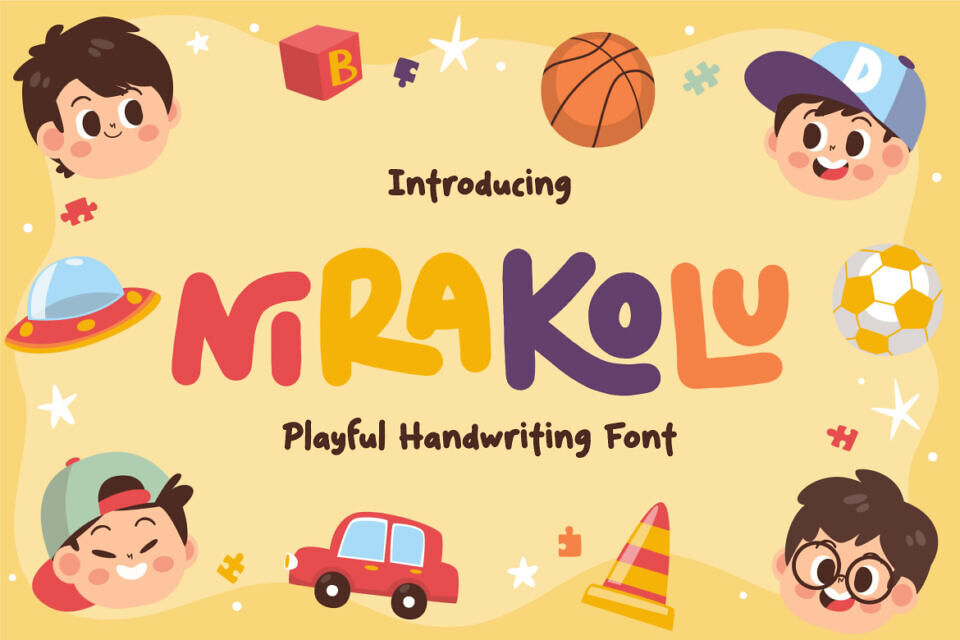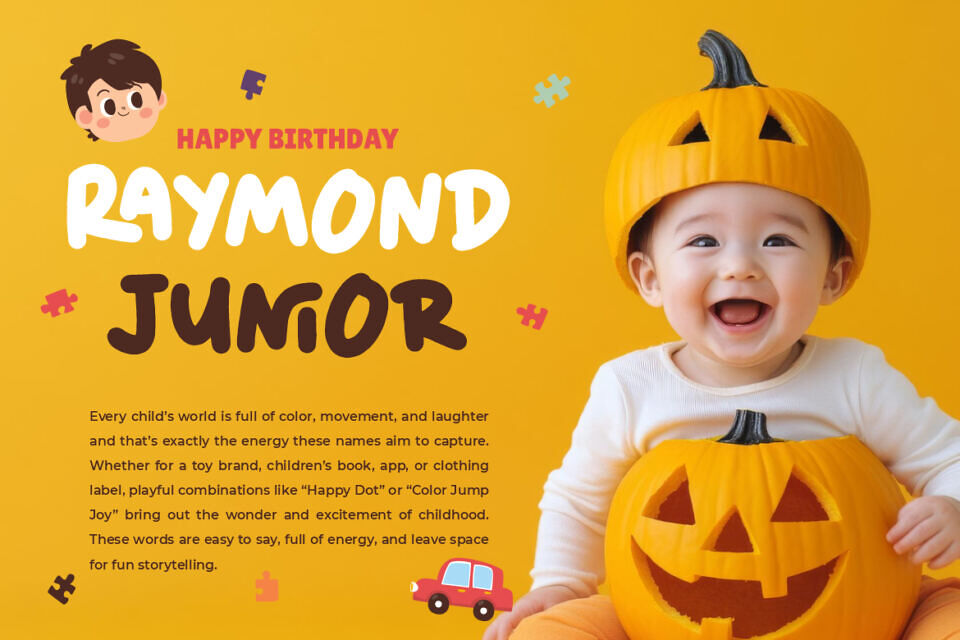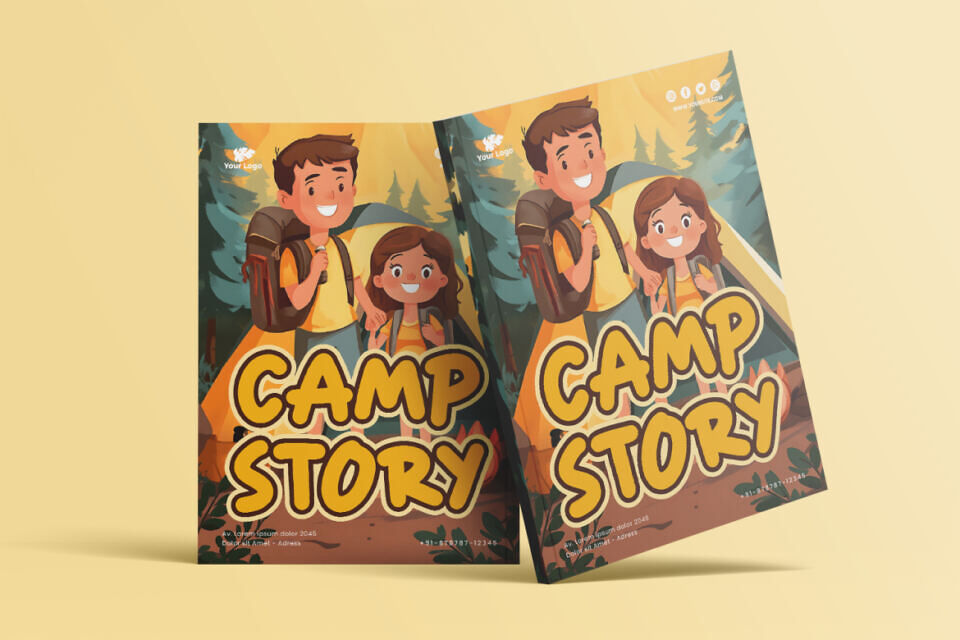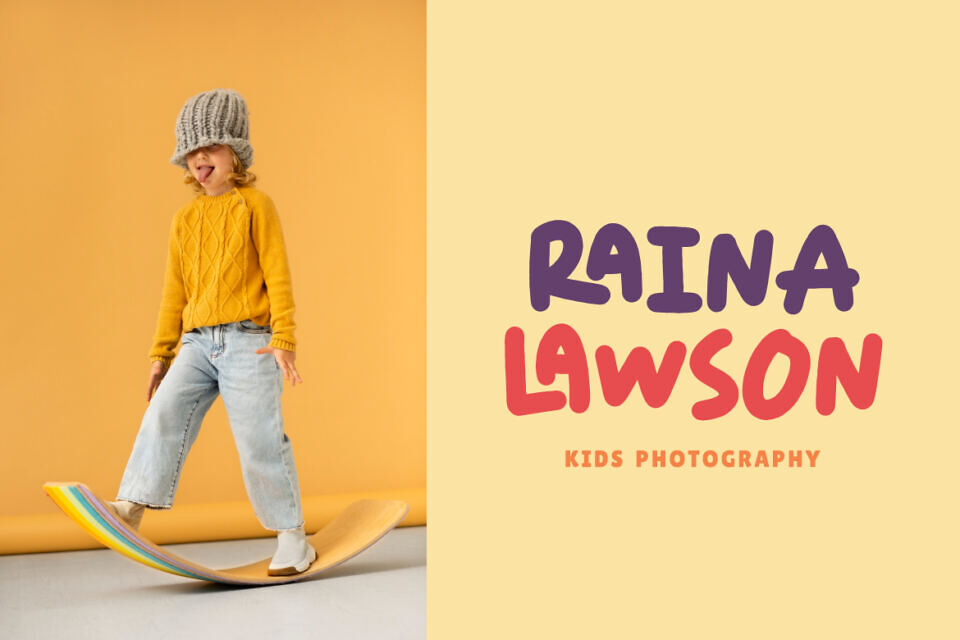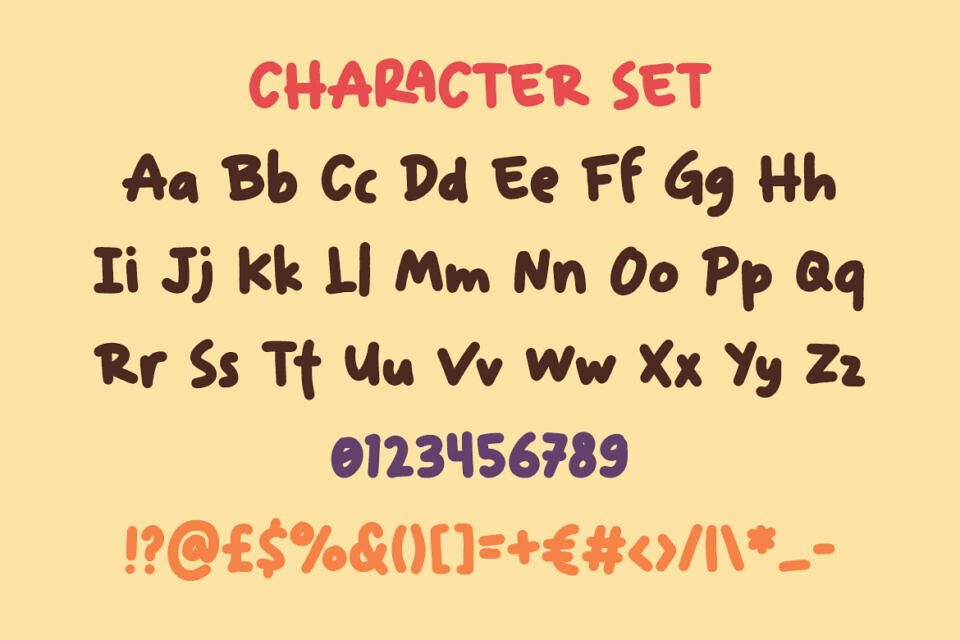
Nirakolu is a joyful typeface that captures the carefree spirit of childhood and playful doodling. The characters are bold and rounded with slightly uneven heights, giving each letter a lively handmade touch.
Its handwritten style radiates friendliness, while the thickness of the strokes ensures clarity and readability. With smooth curves and a casual balance, the font creates a sense of fun, energy, and creativity. This makes it perfect for projects that want to emphasize happiness, imagination, and childlike wonder.
Nirakol is versatile for many applications such as children’s books, toys, birthday invitations, packaging, posters, and playful branding. It is also great for logos, greeting cards, stickers, social media posts, and magazine covers that aim for a cheerful and approachable tone.